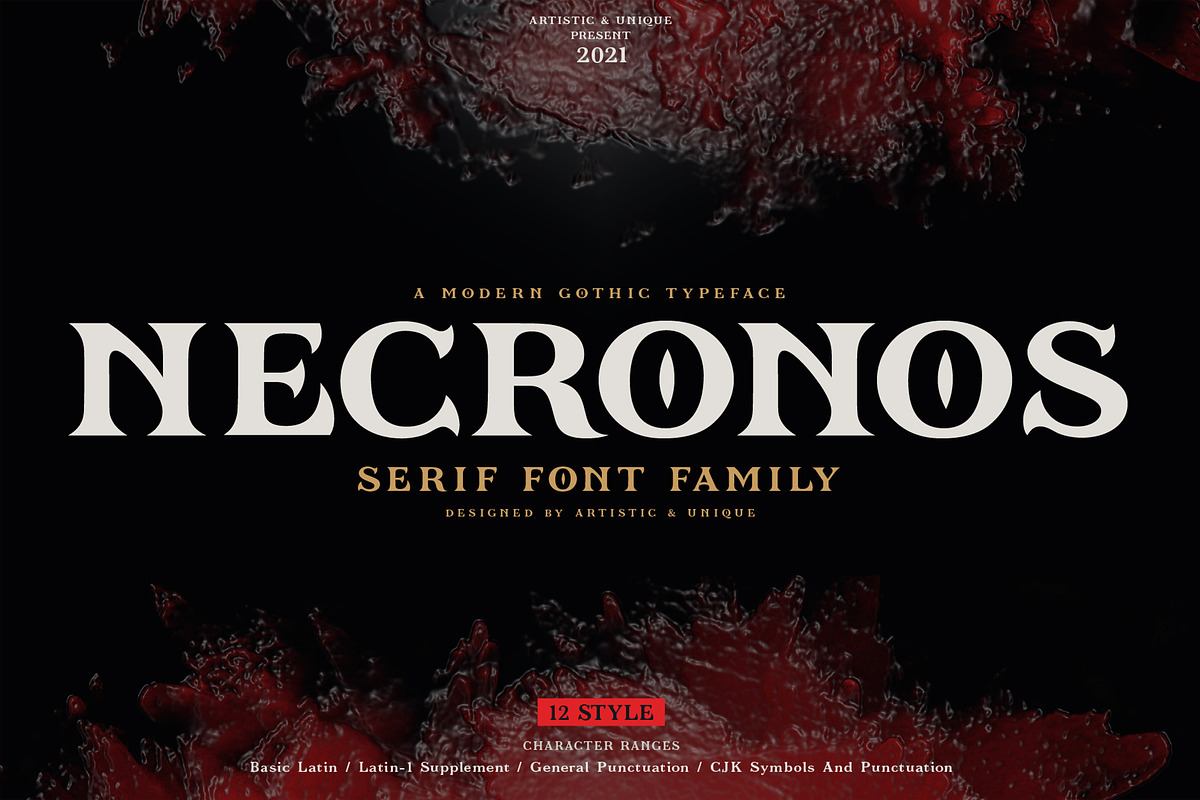
Necronos - Serif Font Family Free Download is a bold and modern serif typeface family that combines classic elegance with a sharp, contemporary edge. Featuring strong contrasts, sleek serifs, and clean structure, Necronos is perfect for editorial headlines, luxury branding, posters, book covers, and corporate identity design.
Necronos - Serif Font Family Free Download includes multiple weights and styles, offering flexibility for both display and body text. Whether you're crafting a powerful brand presence or designing high-impact editorial content, this font family delivers timeless professionalism with a stylish twist. Download it today and give your next project a bold, refined voice with Necronos.